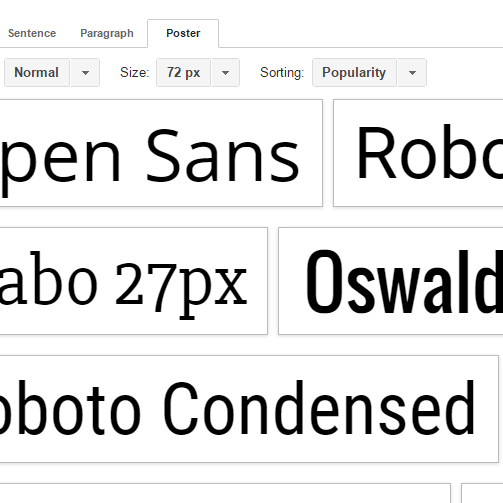
Incredible Google Outline Fonts 2022
Incredible Google Outline Fonts 2022. To request other styles or weights, append a colon (:) to the name of the font, followed. From dumpy liquor stores to majestic theaters, sometimes signs have nowhere to.
First add effect= effectname to the google api, then add a special class name to the element that is going to use the special. Choose a font that would look great with a neon. Singolare is a complete layered font set that consists of 15 fonts with both uppercase and lowercase letters that come in 9 weights and 3 different styles.
Roboto Has A Dual Nature.
Press “insert” from the top menu and select “word art”. To request other styles or weights, append a colon (:) to the name of the font, followed. Vultura is a beautiful display font that comes in regular and outline versions.
The Official Typeface For Brand Automation Company Outfit.io.
A b c d e f g i j k l m n o p q r s t u v w x y z # 3d alien animal army stencil asian arabic bitmap pixel. From dumpy liquor stores to majestic theaters, sometimes signs have nowhere to. There may be several lines, or the inside of the letter may be completely hollow.
Click to find the best 36 free fonts in the google style. You can use the hikou. Exodar is a modern outline font that comes with futuristic design.
Singolare Is A Complete Layered Font Set That Consists Of 15 Fonts With Both Uppercase And Lowercase Letters That Come In 9 Weights And 3 Different Styles.
Extract the google font link (from the import rule in this case). Poppins geometric sans serif typefaces have been a popular design tool ever since these actors took to the world’s stage. Colored, sized and positioned entirely with css.